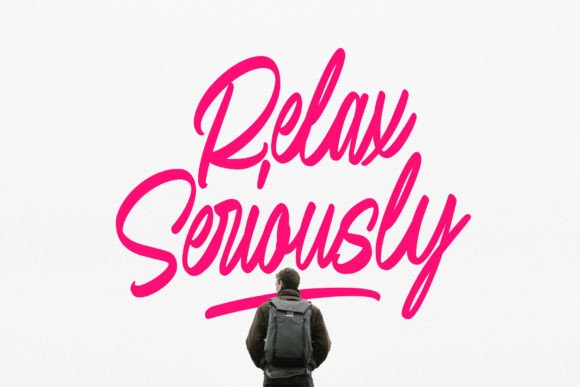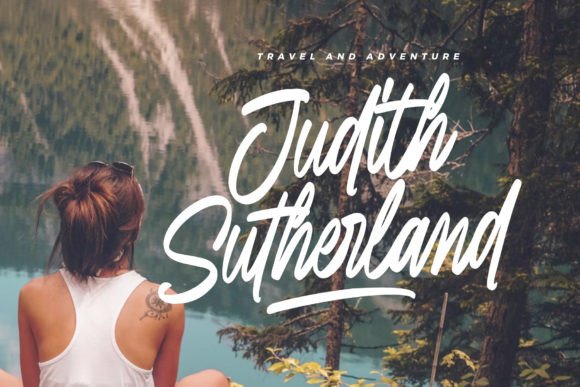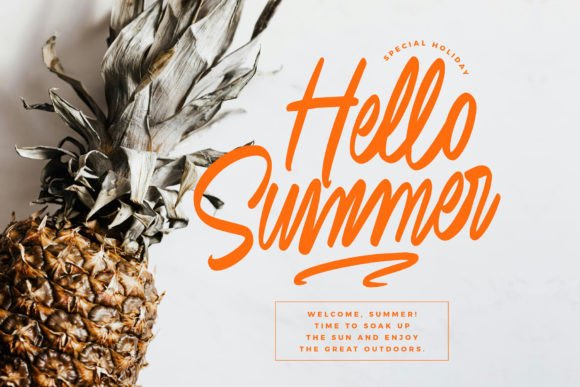
Introduction to Saturday Delicate Font
Have you ever sat at your desk, surrounded by scribbled notes, sketchbooks, and half-finished designs, searching for that elusive spark to elevate your creative project? For designers, finding the perfect font can be the difference between a good design and a great one. It’s a moment when the right typography can transport your message, evoke emotions, and leave a lasting impression.
| 👤 Author | Damarletter |
Enter the Saturday Delicate Font, a stunning handwritten script that embodies the essence of refined elegance and sophistication. This high-quality font is a design resource that can add a touch of luxury to any project, from wedding invitations to luxury brand campaigns. With its smooth, fluid strokes and detail-oriented letterforms, the Saturday Delicate Font is the perfect choice for designers seeking to infuse their work with a sense of polish and finesse.
Whether you’re looking for a free download or a premium design resource, the Saturday Delicate Font is a valuable addition to any designer’s toolkit. Its transparent background and versatile style make it an ideal choice for a wide range of creative projects, from digital graphics to print materials.
Key Features of Saturday Delicate Font
- High-quality typography with delicate and elegant lines, perfect for creative projects and design resources.
- Transparent background, allowing for seamless integration with any background image or color.
- Includes a wide range of characters, including uppercase and lowercase letters, numbers, and punctuation marks.
- Designed to work well at high resolutions, making it ideal for print and digital applications.
- Unique characteristic: The Saturday Delicate Font features a subtle texture that adds depth and visual interest to any design.
Honest Review: Saturday Delicate Font
I recently stumbled upon the Saturday Delicate Font while searching for a high-quality design resource for a creative project. I was drawn to its elegant and refined aesthetic, making it perfect for a variety of applications.
What works well: ✨ The font is available for free download, which is a major plus for designers on a budget. The high quality of the font is also impressive, with crisp lines and smooth curves. The transparent background allows for easy integration with any design element. I particularly appreciate the variety of styles and weights available, making it versatile for different design needs.
- Beautiful and elegant design
- High-quality typography
However, there are a few limitations to consider: ⚠️ The font may not be suitable for bold or dramatic designs, as it’s more geared towards delicate and refined projects. Additionally, the font may not be as customizable as some other design resources.
Overall, I’m impressed with the Saturday Delicate Font and would recommend it to designers looking for a high-quality, elegant font for their creative projects. While it may have some limitations, its beauty and versatility make it a valuable addition to any design library.
The Saturday Delicate Font is a high-quality design resource perfect for creative projects requiring a touch of elegance and sophistication.
Tips for Getting the Most Out of the Saturday Delicate Font
Use the Saturday Delicate Font on a transparent background for a more elegant look.
Combine the Saturday Delicate Font with other design elements, such as graphics or images, to create a unique and eye-catching design.
Common Use Cases for the Saturday Delicate Font
The Saturday Delicate Font is perfect for:
Is the Saturday Delicate Font a high-resolution font suitable for large-scale designs?
Yes, the Saturday Delicate Font is a high-resolution font designed to meet the needs of designers working on large-scale projects. With its crisp and clear typography, you can confidently use this font in posters, billboards, or any other design project where high-quality typography is essential.